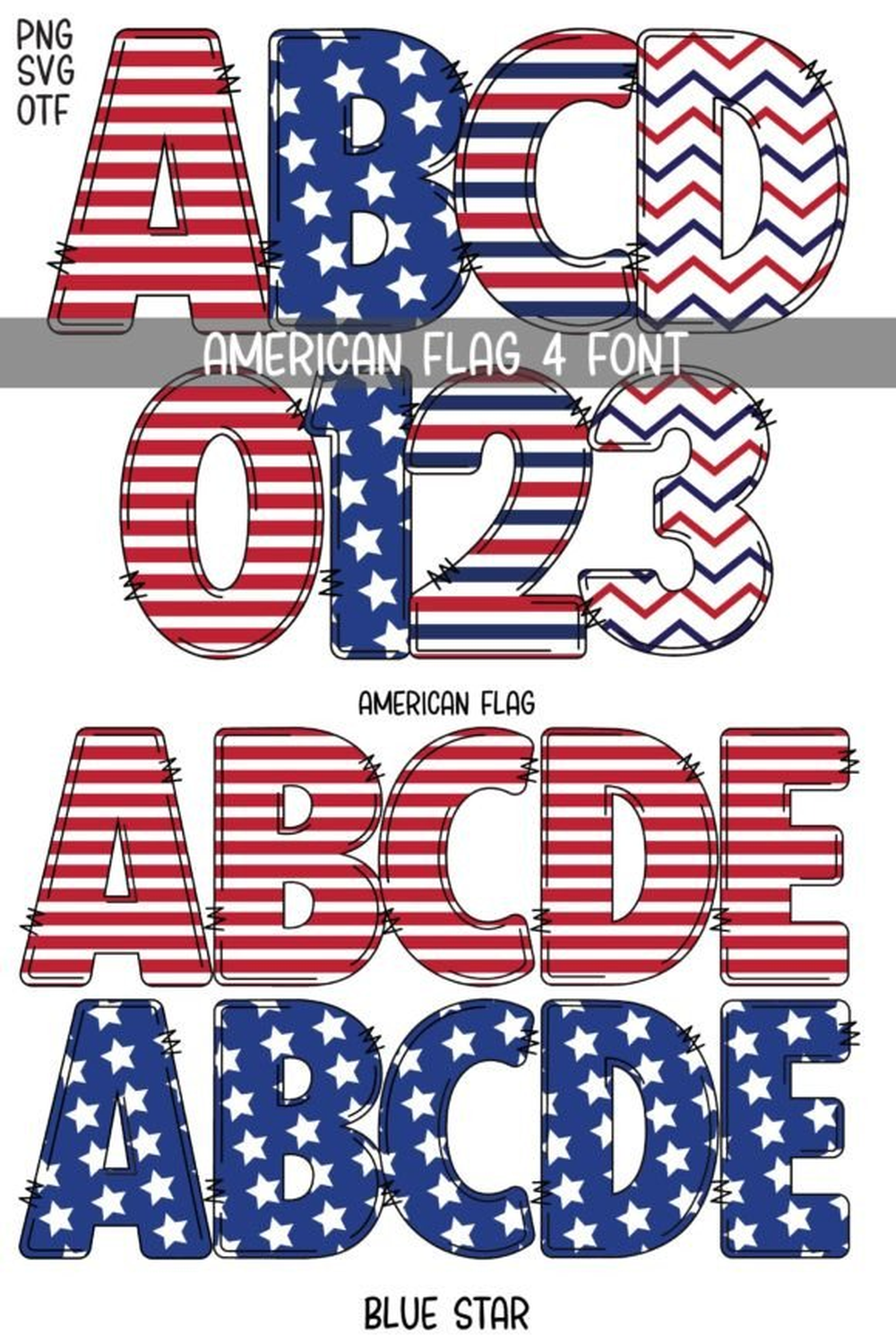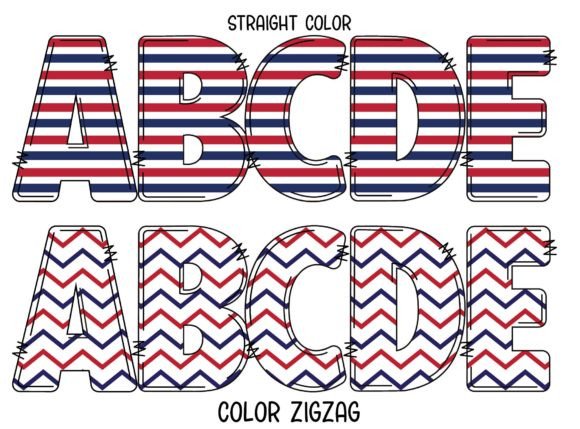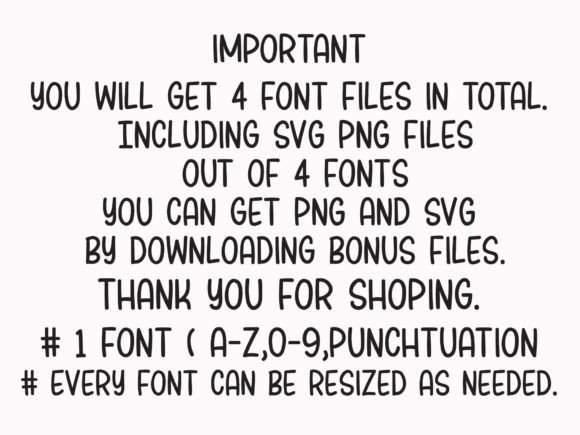
About the American Flag Font
The wait is over! The incredible American Flag Font is now available for your design toolkit. American Flag is a cool and uniquely crafted patriotic color font. Its fun and playful characters make it the perfect font for stickers, mugs, t-shirts, ornaments, independence day event cards, event invitations, and many more!